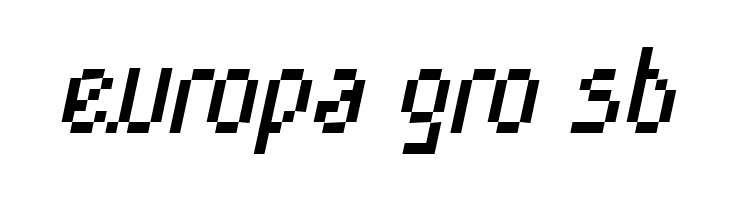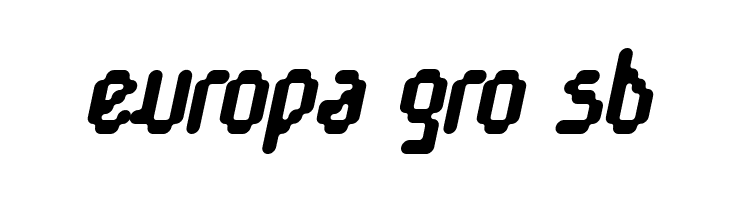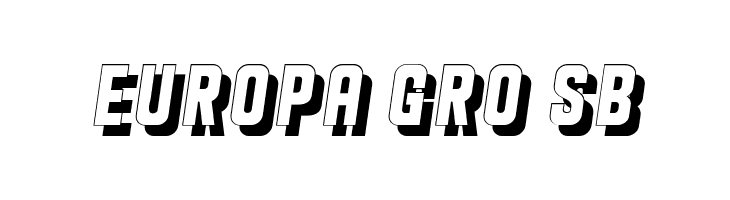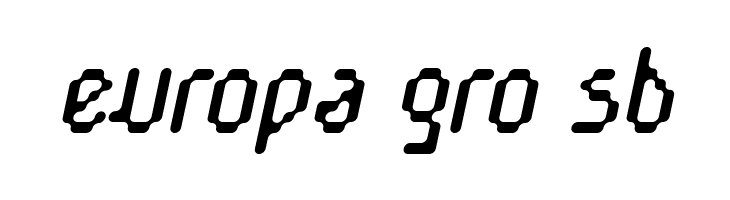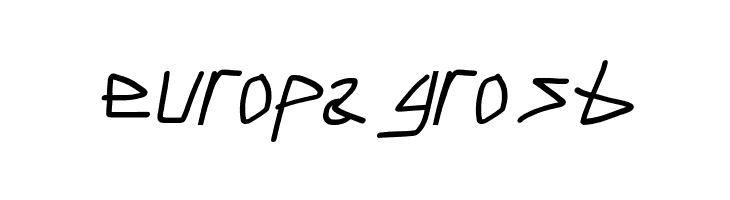
• Caveman SemiBold Italic
A playful, hand-drawn style with slanted, uneven strokes for a dynamic look.
• Cavernous Shadows Italic
Bold, italicized font with a three-dimensional shadow effect.
• Caviar Dreams Bold Italic
( Fonts by Lauren Thompson - www.nymfont.com )
A sleek, modern, bold italic font with consistent stroke thickness.
• Caviar Dreams Italic
( Fonts by Lauren Thompson - www.nymfont.com )
A sleek, modern italic font with clean lines and balanced proportions.
• Cayetano Bold Italic
A bold, italicized pixelated font with a retro digital aesthetic.
• Cayetano Italic
A pixelated, italic font with a bold, geometric style.
• Cayetano Round Bold Italic
A bold, rounded, and italicized font with a playful and modern style.
• Cayetano Round Italic
A bold, rounded, and italicized font with a modern and friendly style.
• cayla Italic
An elegant, flowing script font with connected cursive letters and delicate flourishes.
• cbe Bold Italic
A bold, italicized font with a dynamic and expressive style.